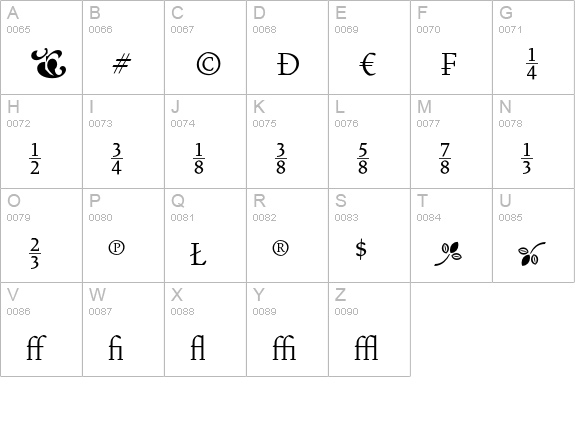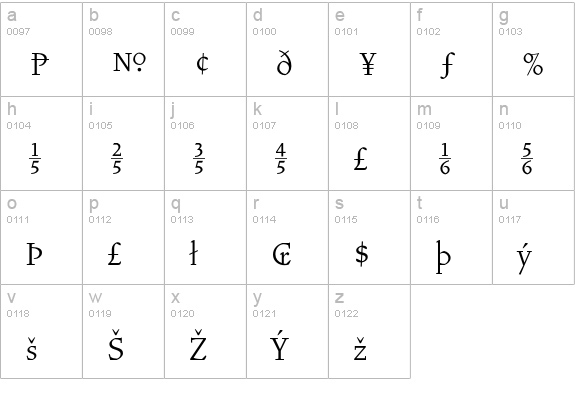
VendettaLightFractionsTabFigs Font Details
VendettaLightFractionsTabFigs font is a stunning display font that effortlessly combines elegance and modernity. With its sleek lines and delicate curves, this font is perfect for adding a touch of sophistication to any design project. The beauty of VendettaLightFractionsTabFigs font lies in its versatility. Whether you're creating a logo, designing a website, or crafting eye-catching advertisements, this font will captivate your audience and leave a lasting impression. What sets VendettaLightFractionsTabFigs font apart is its unique ability to seamlessly blend traditional typography with contemporary design elements. The carefully crafted letterforms exude a sense of refinement, while the intricate details add a modern twist. But what truly sets VendettaLightFractionsTabFigs font apart is that it is completely free. Yes, you read that right! This font is freely available to download at FontsMarket.com. Now, you can elevate your design projects without breaking the bank. So don't miss out on the opportunity to add VendettaLightFractionsTabFigs font to your font library. Download it today and unlock a world of design possibilities. Whether you're a professional designer or a creative enthusiast, this font will undoubtedly become a valuable asset in your creative toolkit.